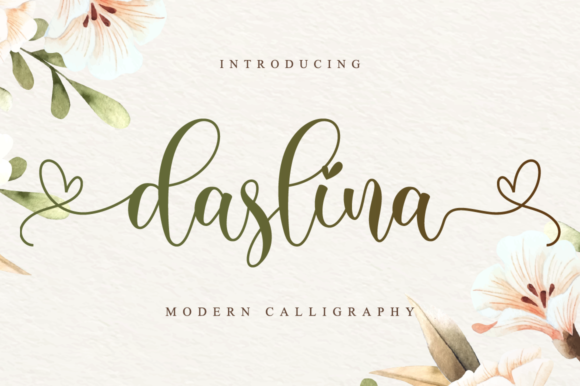
Introducing Daslina Font, an exquisite handwritten masterpiece that will elevate your projects to new heights. Immerse yourself in the world of impeccable calligraphy, where classic elegance meets modern charm. Daslina's flowing lines, varying baseline, and breathtaking alternates will leave you breathless.
With Daslina, let your creativity shine. It's the perfect companion for business websites, adding a touch of sophistication and professionalism. Whether you're crafting logos, branding materials, or website designs, Daslina will make a lasting impression.
But Daslina is not just for businesses; it's also a font for dreamers, artists, and visionaries. Its smooth lines and gorgeous glyphs will bring your personal projects to life, whether it's a heartfelt letter, an inspiring quote, or a stunning piece of art.
Don't settle for ordinary fonts. Embrace Daslina and embark on a journey of artistic excellence. Fall in love with its timeless beauty and watch as your projects blossom into masterpieces.